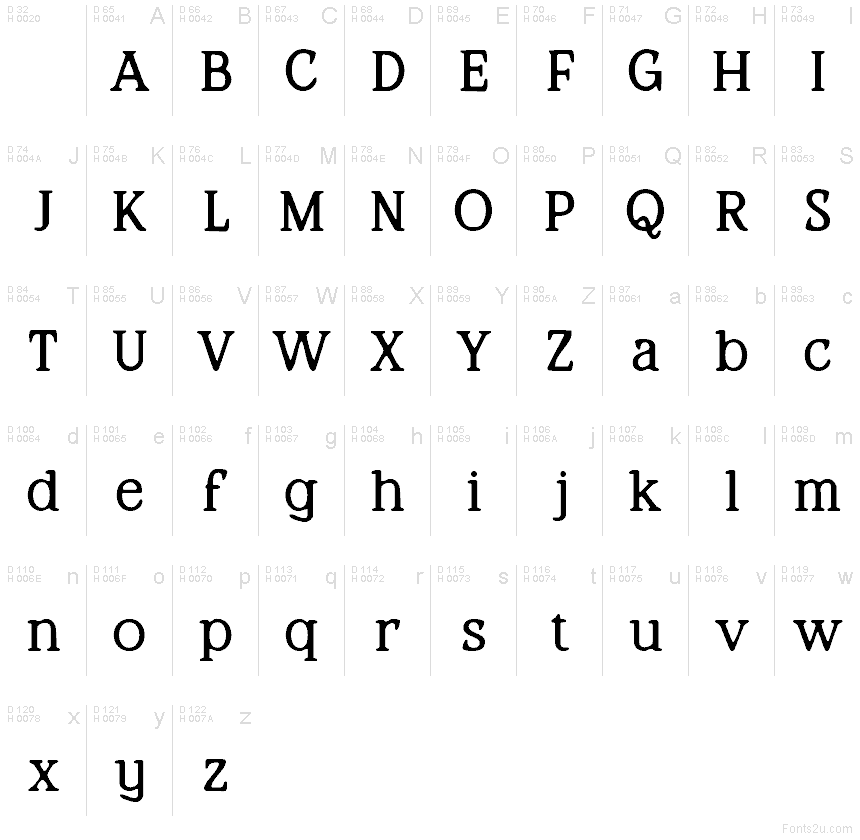
CSHieraDrawn-Regular Demo
CS Hiera Drawn font by Craft Supply Co. is a free hand-drawn serif font. Built within the CS Hiera family, it keeps classical proportions but trades polish for tactile charm—softly bracketed serifs, gentle contrast, and faintly wobbled strokes that feel penciled-in rather than machined. The rhythm stays steady and legible, while the edges carry a dry-ink grain that gives headlines presence without shouting.
Using CS Hiera Drawn, branding projects gain warmth and credibility—think boutique packaging, artisan food labels, book covers, poster titles, café menus, and social media quotes. The sturdy spacing holds up at larger sizes, where the texture can breathe. Pair headings in CS Hiera Drawn with body copy set in CS Hiera for a cohesive, craft-meets-classic system. This free font shines on work that wants story and substance in equal measure.
CS Hiera Drawn Demo